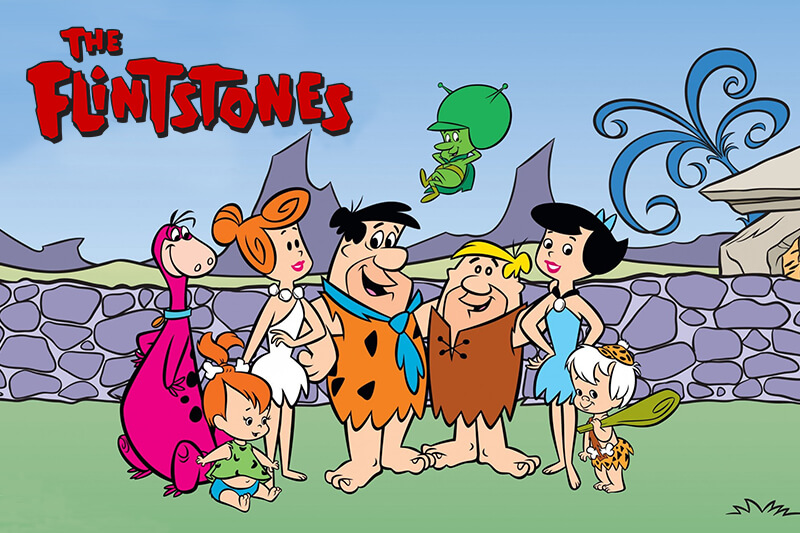
Eccentric Font Generator
Stand out from the ordinary with the free Eccentric font generator — create wild, expressive text that brings personality and flair to any creative project.
About the Eccentric Font Generator
Eccentric typography celebrates the unconventional — irregular letterforms, unexpected proportions, and a joyful disregard for typographic norms that makes every word feel like a personality statement. It is the font style for brands, artists, and creators who want their text to be as distinctive as their ideas.
• Independent brand logos and artist identity work
• Album covers and music release graphics
• Quirky social media posts and bio text
• Zine covers and underground publication headers
• YouTube channel art for creative and niche content